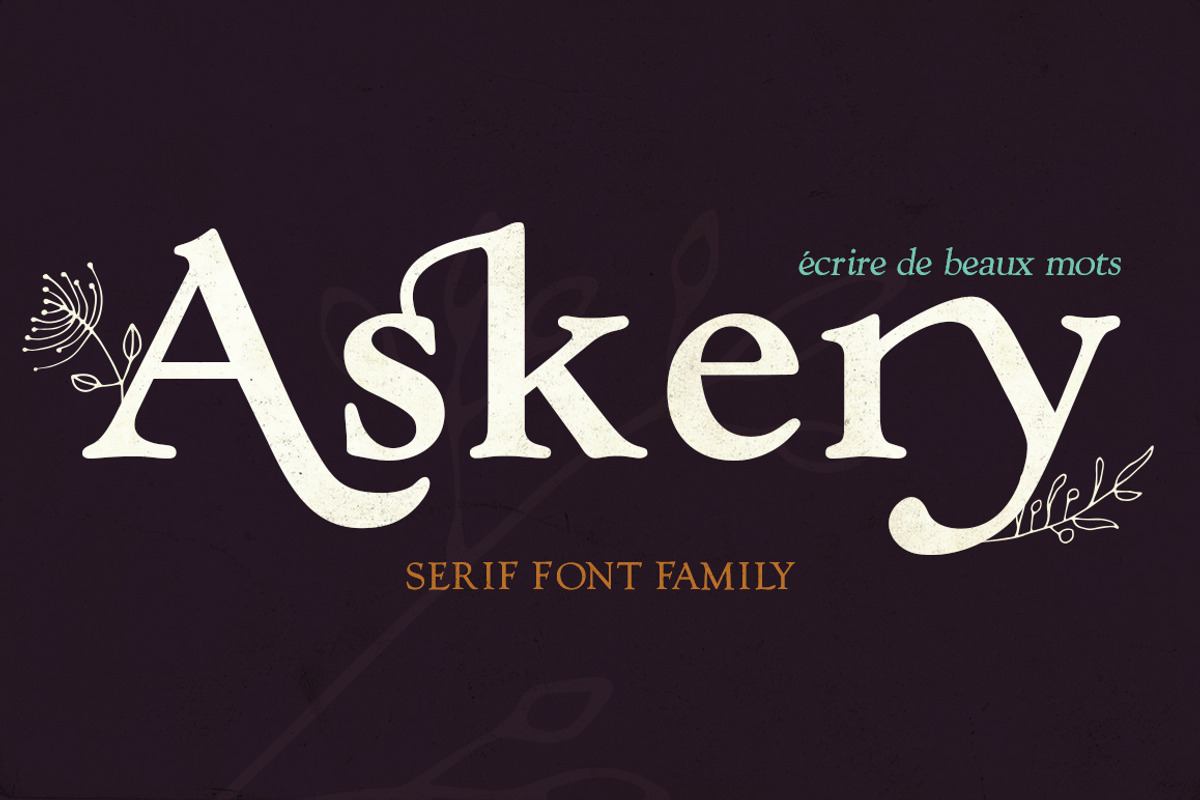
Askery Font Family Free Download
Askery Font Family Free Download is a sleek and modern typeface family designed for versatility and readability. Featuring a range of weights and styles, it’s perfect for branding, editorial layouts, websites, and professional presentations. Whether you're creating minimalist designs or impactful headlines, Askery provides clean lines and contemporary sophistication. Please note that you must purchase this font for commercial use, but it is available as a free download for testing purposes. Elevate your design projects with Askery Font Family Free Download, and enjoy the balance of style and functionality in your typography.